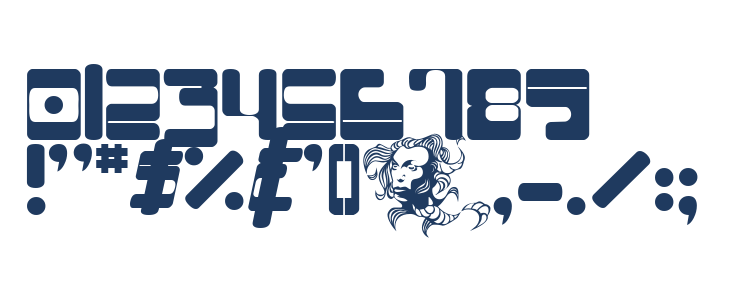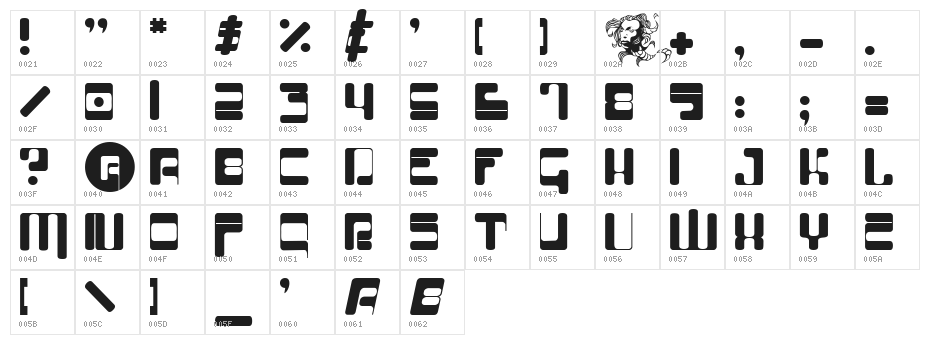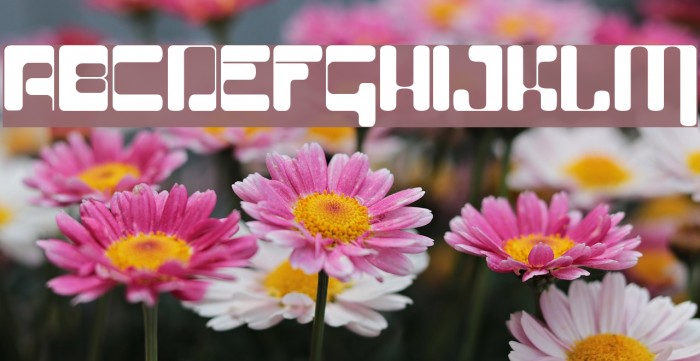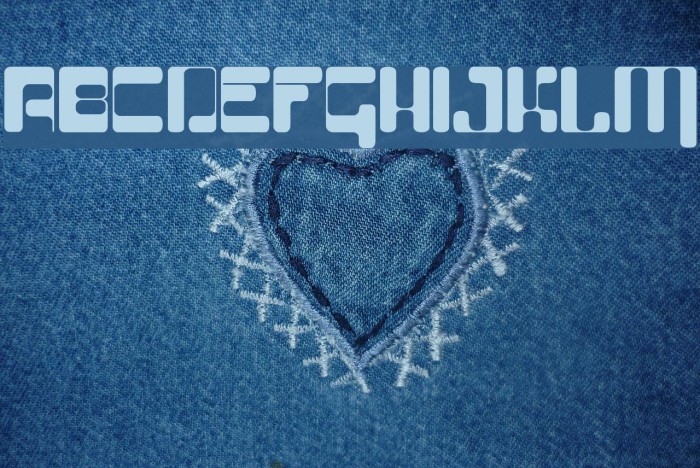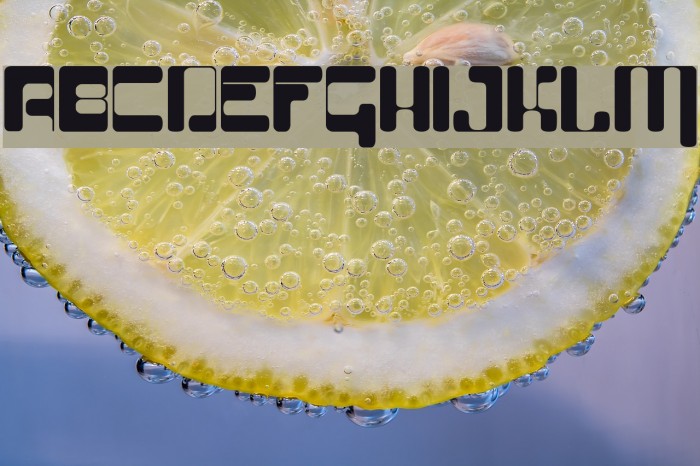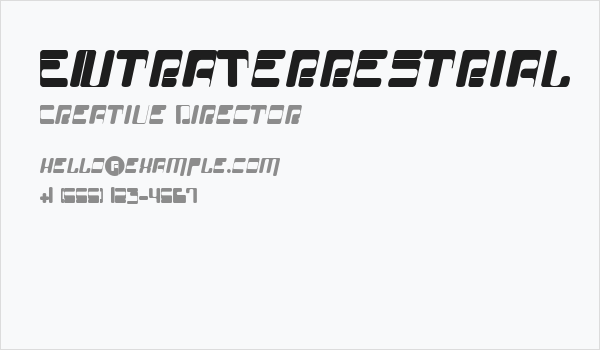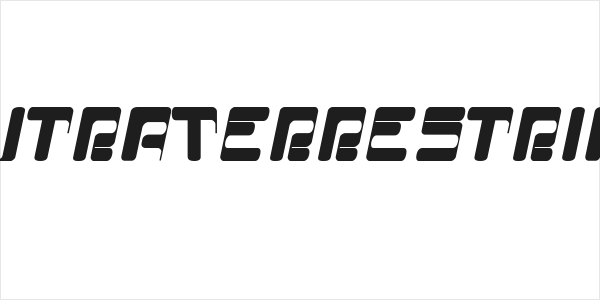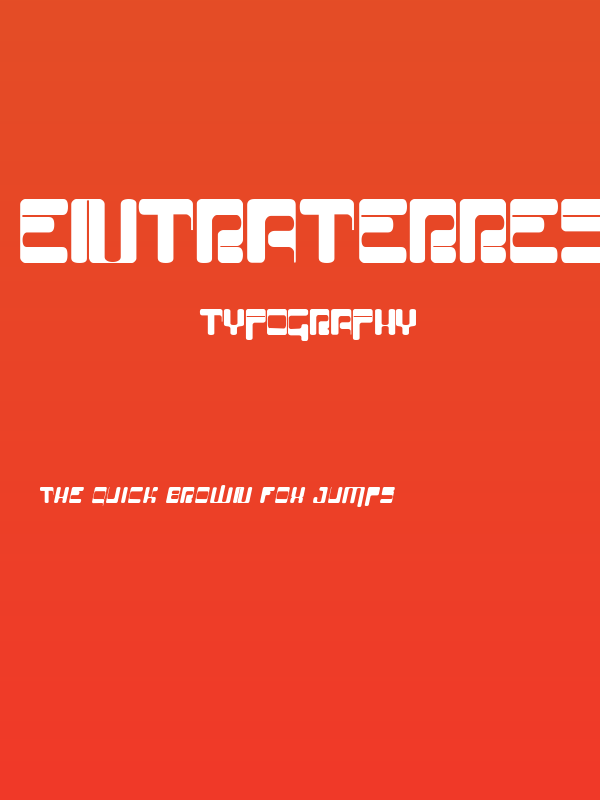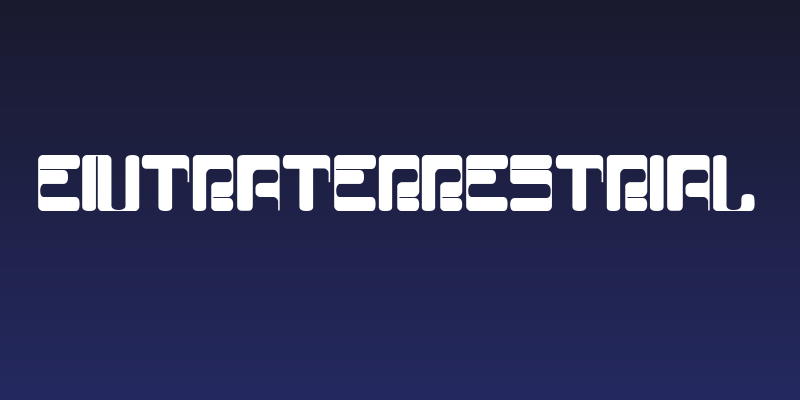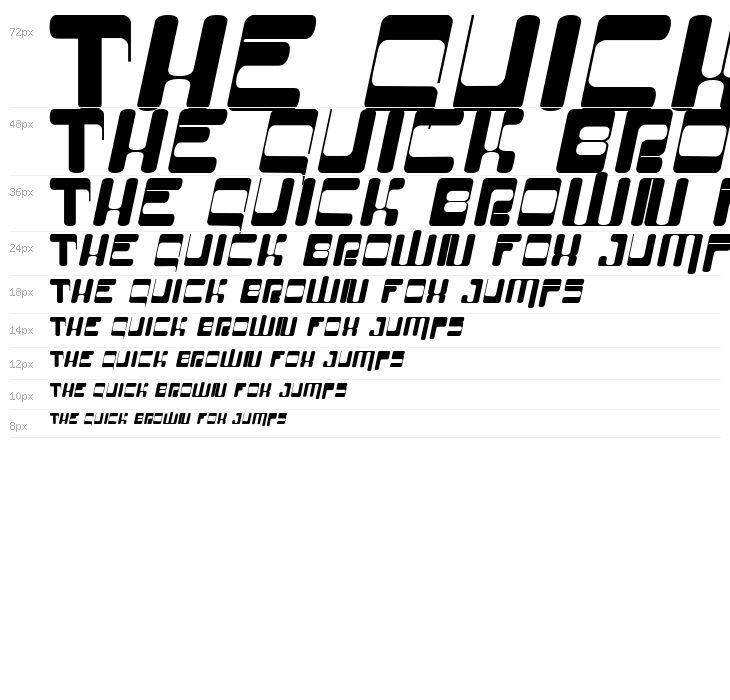
EntraTerrestrial Font
EntraTerrestrial Description
This font features a futuristic and bold design, characterized by its rounded edges and geometric shapes. The uppercase letters are distinct with a strong presence, while the lowercase letters maintain a consistent style that complements the uppercase. The numbers are equally bold, ensuring readability and impact. Special characters are designed with the same futuristic aesthetic, making them stand out. The overall design is modern and eye-catching, suitable for projects that require a unique and innovative look.
| Proposed Projects | Ideal for sci-fi themed projects, technology branding, video game titles, and futuristic posters. |